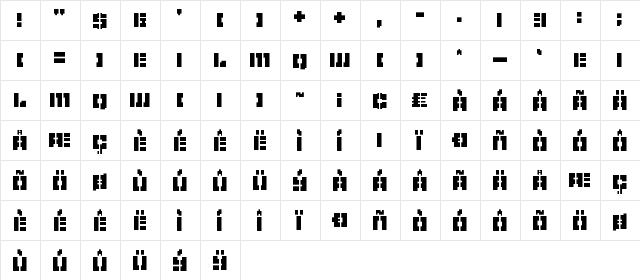
Pelode Regular Font Preview
Pelode Regular
| Designer | NAL |
Design Context for Pelode Typeface
Pelode is a composed and adaptable typeface that performs quietly and consistently across a wide range of design contexts.